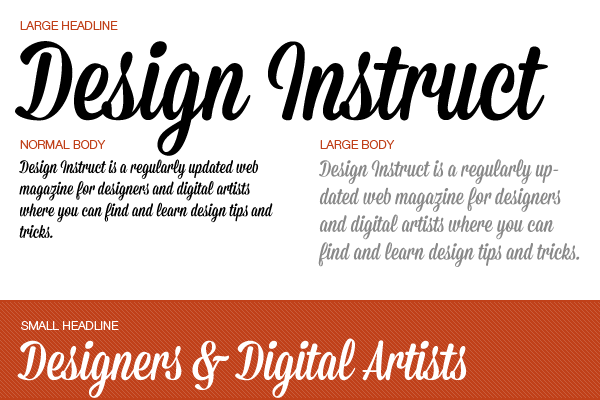
Wisdom script font family designed by james t. Otf and ttf files included. Download wisdom script for free today. Moreover, you can embed it to your website with you can also check the legal and commercial status of this font; Wisdom script ai font info. Edmondson has a total of 1 different styles. Wisdom is a script font designed by james t.
Edmondson with regular weight and style, download file name is wisdomscriptaj.otf. How to use this webfont? We are providing wisdom script font here for free that includes free font, script fonts, mission script font, free fonts, sugar script font, & typefaces. Wisdom script is a fun and playful script font which is perfect for design and craft projects. Wisdom script is a fun and playful script font which is perfect for design and craft tasks. Download wisdom script, font family wisdom script by james t. We have 1 free wisdom script fonts to offer for direct downloading · 1001 fonts is your favorite site for free fonts since 2001. Otf and ttf files included. You can download the wisdom script font free that includes the google, mission, thirsty, sugar, and many other script fonts. It is the users' own legal responsibility to download and use. All content on this site is shared on basis of free share license; With thousands of fonts to choose from today, some organizations go to the. Although we try our best but sometimes. Generated in 2011 by fontlab studio. Wisdom script font family comes only in one bold style. Wisdom script font is a super cool script font family, designed by james t. No problem, we have it here [:: Edmondson with regular weight and style, download file name is wisdomscriptaj.otf. This free fonts collection also offers useful content and a huge collection of truetype face and opentype. Wisdom script ai font info. Moreover, you can embed it to your website with you can also check the legal and commercial status of this font; The designer for this remarkable typeface took keenly to care for making all the glyphs and letters looking perfect and highly legible. Here at our site, we are providing this unique font and the whole family for free and you can download it for free. Wisdom script font family designed by james t. Dear visitor, you went to the site as unregistered user. We encourage you to create a free account and login. Collection of most popular free to download fonts for windows and mac. It comes in a bold style and can be used sparingly to make certain parts of your design fonts are enormously powerful in setting the tone and personality of a brand. Wisdom is a script font designed by james t. Free download of foglihtenno07 font family with 2 styles. Here are some fonts similar to wisdom script.
It comes in a bold style and can be used sparingly to make certain parts of your design fonts are enormously powerful in setting the tone and personality of a brand.
Wisdom script font is a super cool script font family, designed by james t.
It comes in a bold style and can be used sparingly to make certain parts of your design fonts are enormously powerful in setting the tone and personality of a brand.